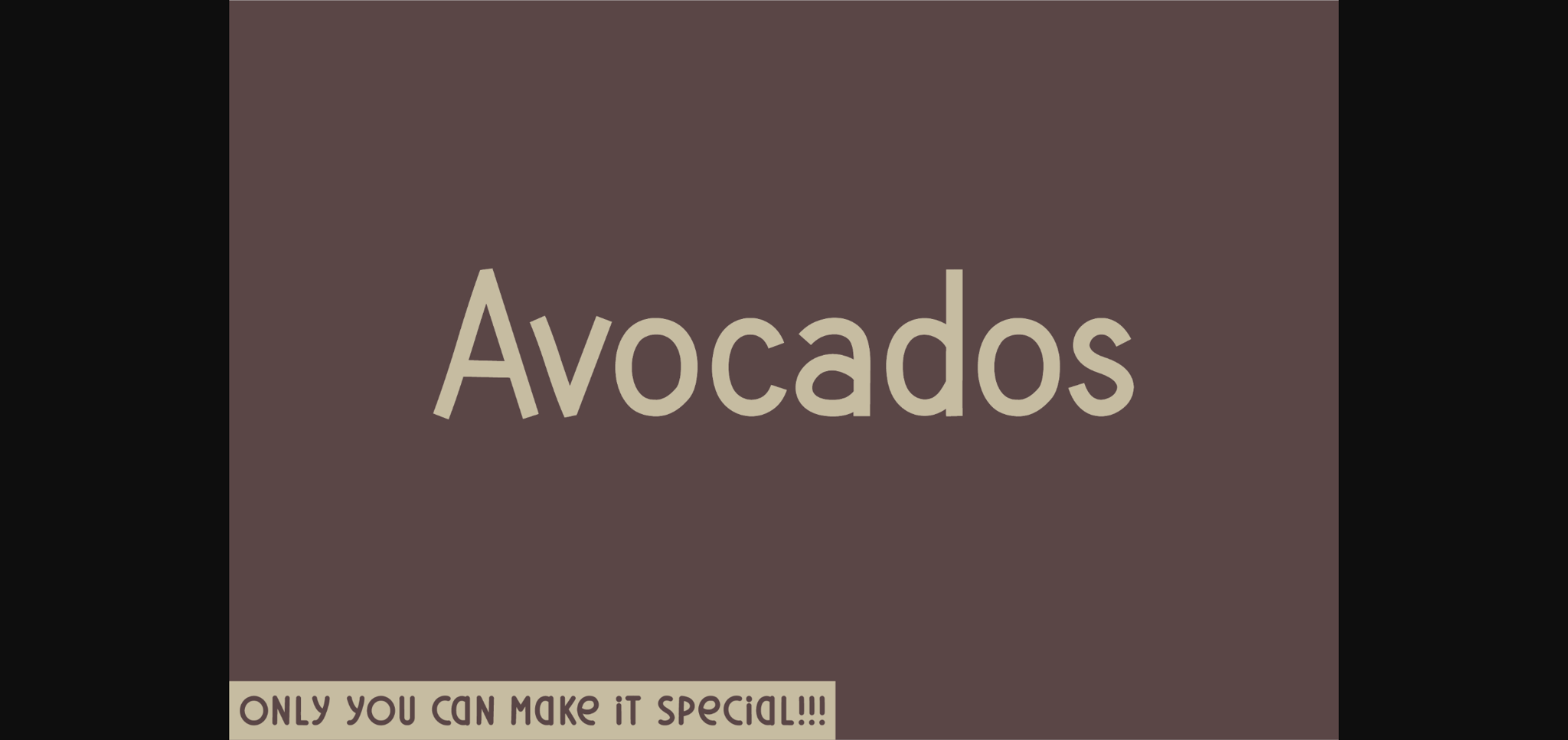
About Avocados Font
Avocados is a natural sans serif font created without changing a single node in each character’s indentation – this makes this font very interesting and unique. Perfect for quotes, notes, tees, and any product design.